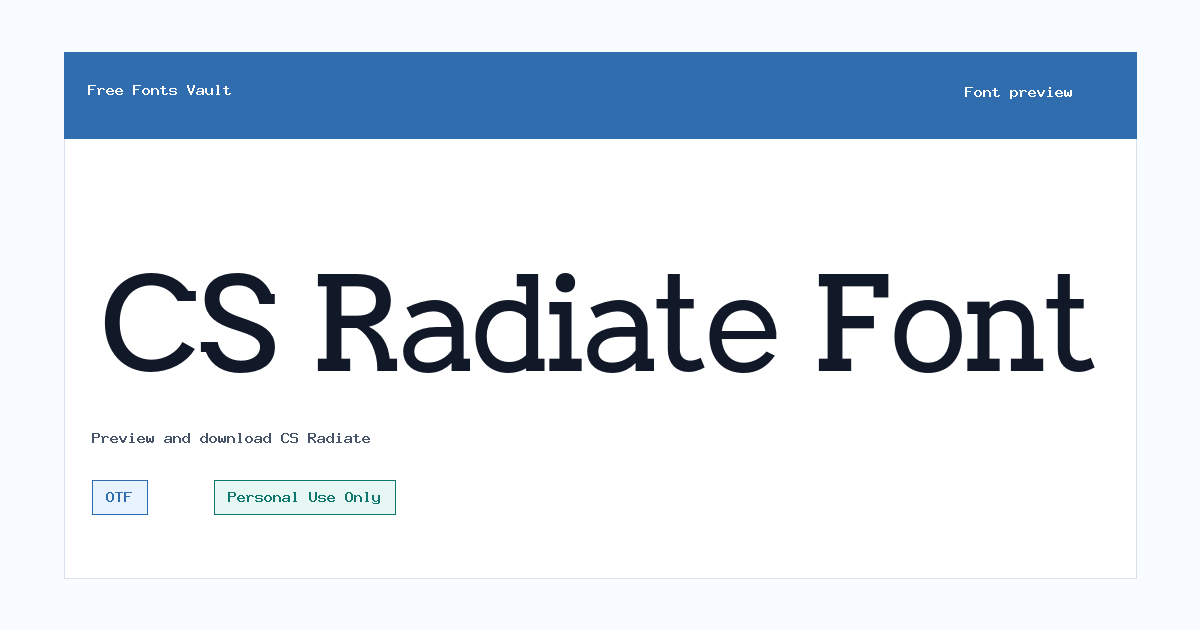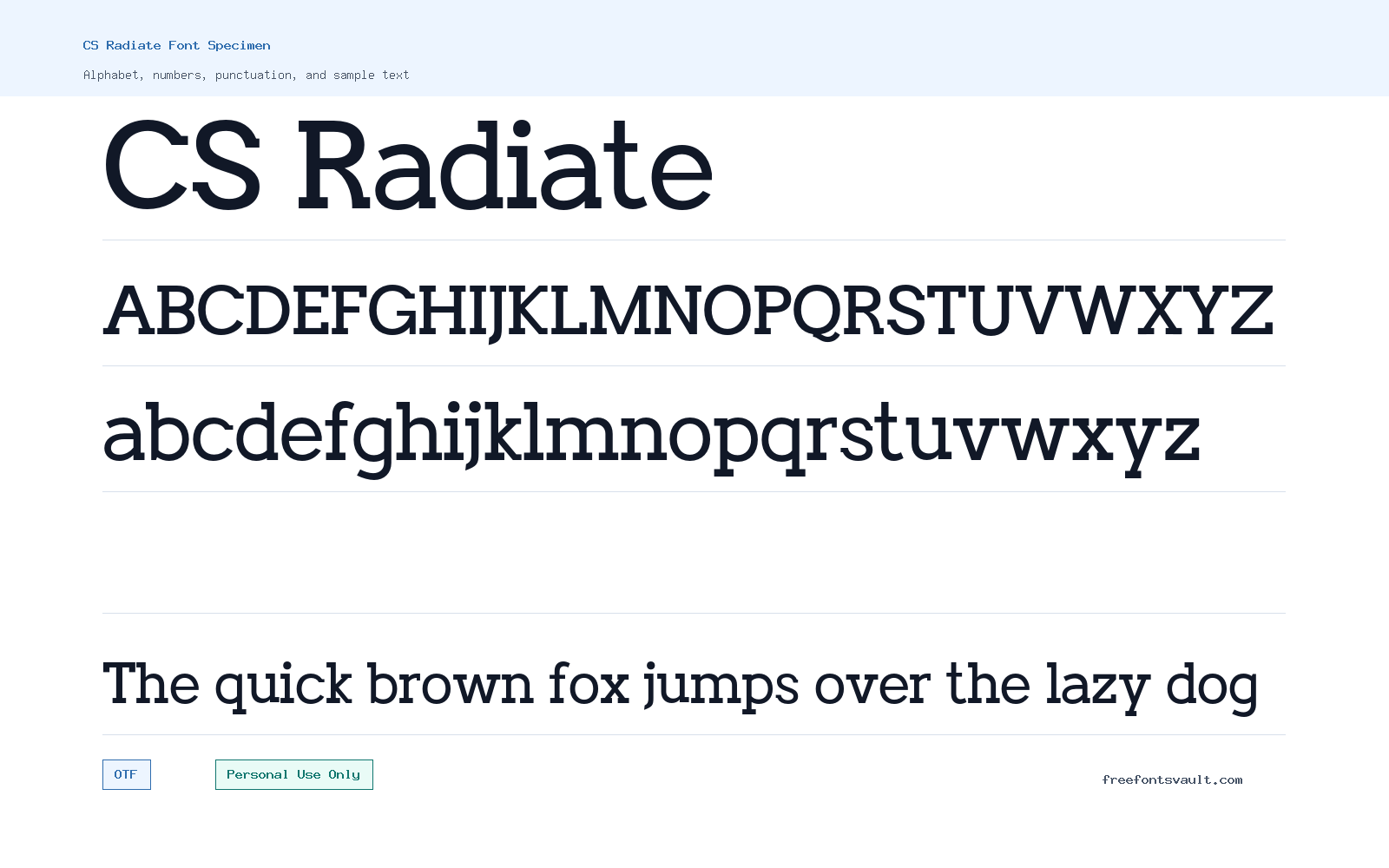
CS Radiate
CS Radiate is a personal-use slab serif font with a regular OTF file for previewing and design testing. It is best approached as a display-friendly typeface for short text, titles, and layout experiments rather than long reading copy.
CS Radiate has the solid, structured feel people expect from a slab serif. The squared serif details can give words a firmer shape on posters, headers, labels, and other places where the type needs to hold attention quickly. Because the file listed for download is a regular style at normal weight, it is a straightforward choice when you want one clean version to test before building a larger design around it.
• Slab serif style suited to short display text and headline testing
• Posters, social graphics, thumbnails, and title treatments
• Personal design mockups, logo drafts, packaging concepts, and font pairing tests
What kind of font is CS Radiate?
CS Radiate is listed as a slab serif font. That makes it more suitable for display uses like titles, posters, and short design text than for long paragraphs.
What should I pair with CS Radiate?
Pair it with a simple sans serif or a quiet text serif. Let CS Radiate handle the headline or focal text, then use the plainer font for smaller supporting copy.